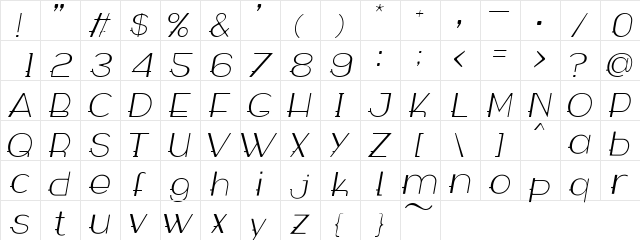
WABECO Thin Thin Italic Font Preview
Design Context for WABECO Thin Typeface
WABECO Thin offers clean, dependable letterforms without strong stylistic allegiance, making it a practical choice for designers who need flexibility. Its italic angle brings a sense of urgency and motion to the letterforms. The delicate stroke weight brings airiness and refinement to layouts.